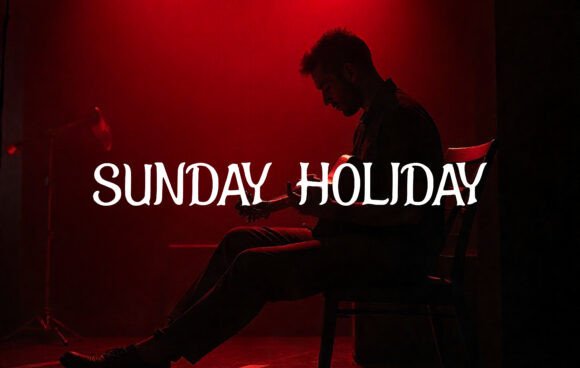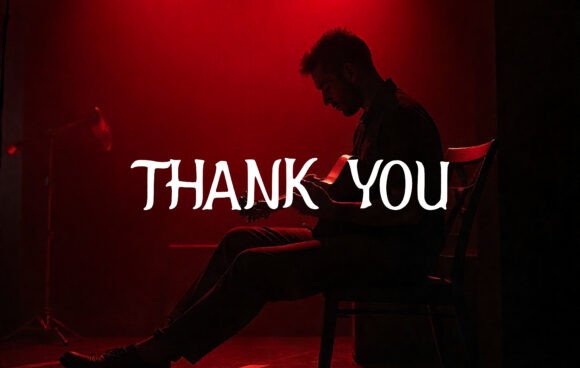
The Quest for the Perfect Font: Discovering Floravine
Ah, the eternal search for the perfect font! As designers, we’ve all been there – stuck on a project, trying to find that one font that will make our design pop. I recall a particularly frustrating experience when a client asked for a logo that was both elegant and playful. I scoured the internet, tried countless fonts, but nothing seemed quite right. That was until I stumbled upon Floravine, a lovely and timeless handwritten font that has since become a staple in my design toolkit.
What Makes Floravine Special?
Floravine is a beautiful, handwritten font that is perfect for creating eye-catching logos, branding, and quotes. Every letter has a unique and beautiful touch, which will make your design come alive! Here are some things I love about Floravine:
- ✨ Unique and beautiful letterforms that add a touch of elegance to any design
- 💫 Supports OpenType features, glyphs, and stylistic alternates, giving you plenty of creative options
- 🎨 Perfect for a wide range of design applications, from logos and branding to quotes and social media graphics
While Floravine is an amazing font, it’s not without its quirks. Here are a few things to keep in mind:
- 🤔 Some users may find the font a bit too ornate for certain design applications
- ⚠️ The font may not be suitable for very long blocks of text, as it can be a bit too decorative
The Story Behind Floravine
While the true story behind Floravine may be unknown, it’s easy to imagine that it was created by a designer who loves beautiful, handwritten typography. Perhaps they were inspired by the elegant script fonts of the past, but wanted to create something fresh and modern. Whatever the inspiration, Floravine is a true gem that deserves to be in every designer’s toolkit.
| Font Name | Floravine Font |
| What is Floravine? | Floravine is a beautiful, handwritten font perfect for creating eye-catching logos, branding, and quotes. |
| What design applications is Floravine suitable for? | Floravine is perfect for a wide range of design applications, including logos, branding, quotes, social media graphics, and more. |
| Is Floravine easy to read? | Yes, Floravine is highly legible, even at small sizes. However, it may not be suitable for very long blocks of text. |